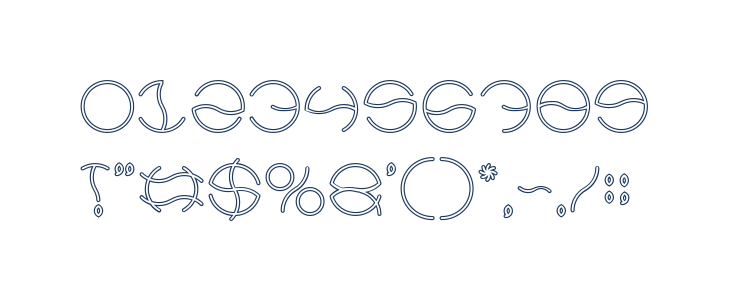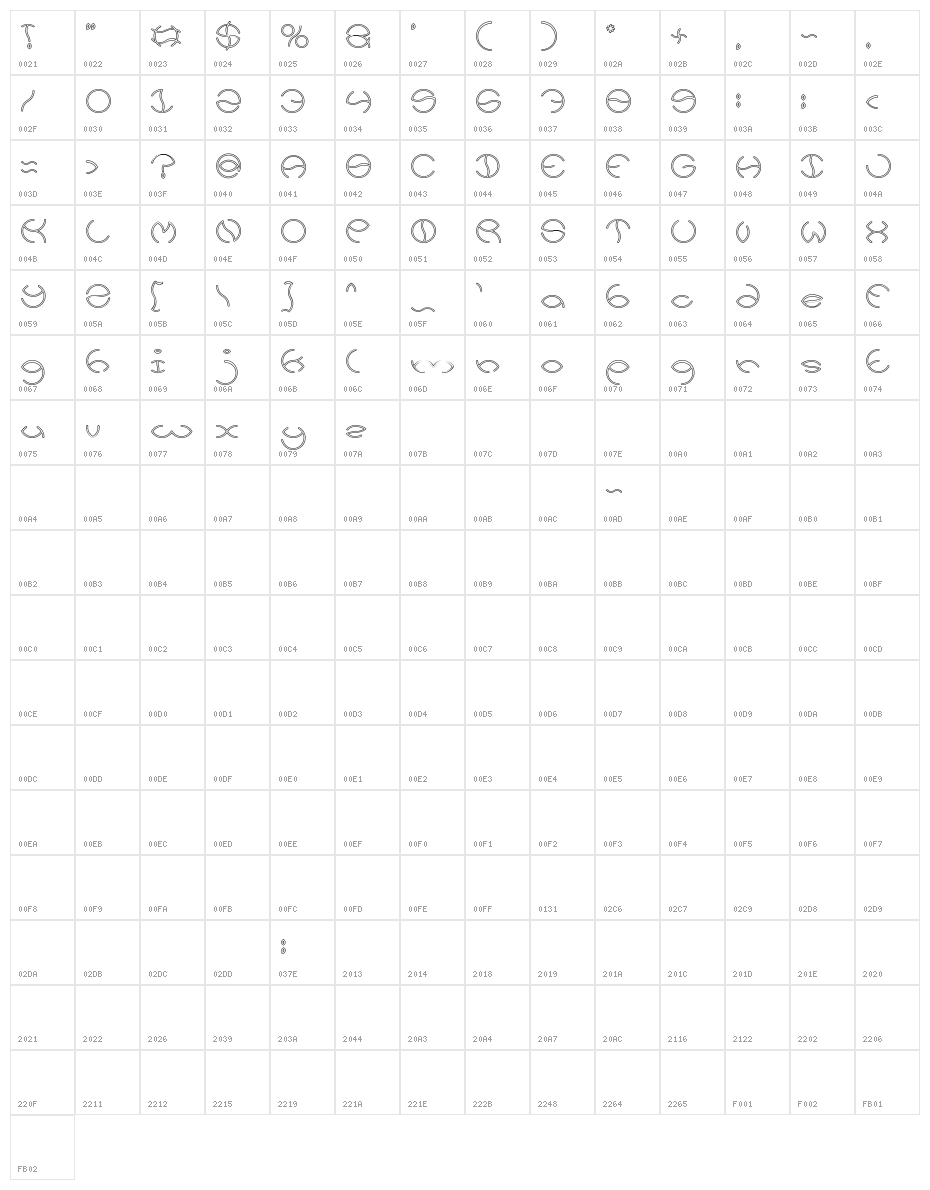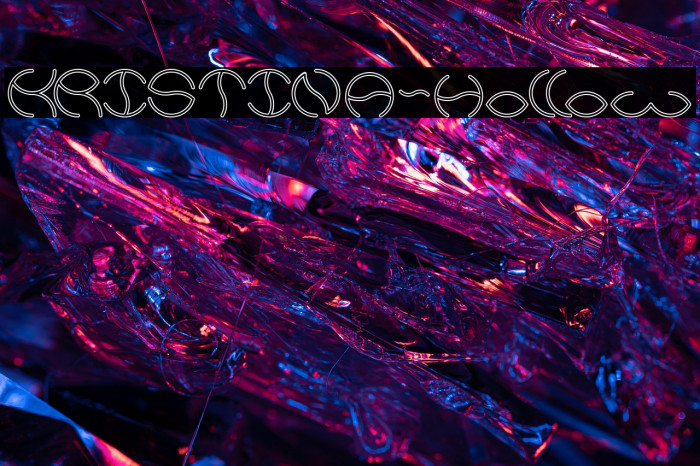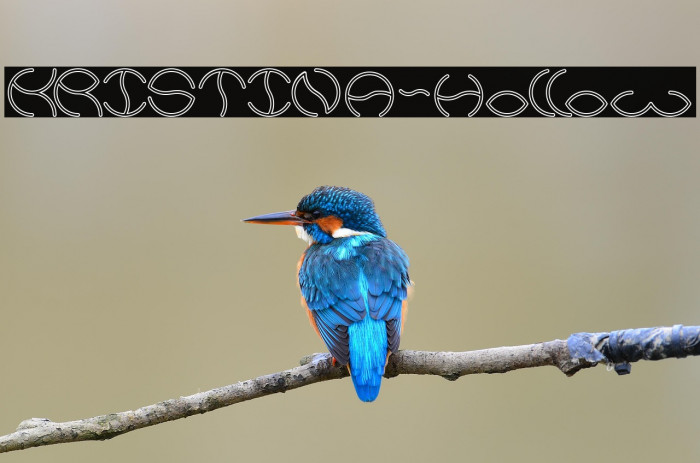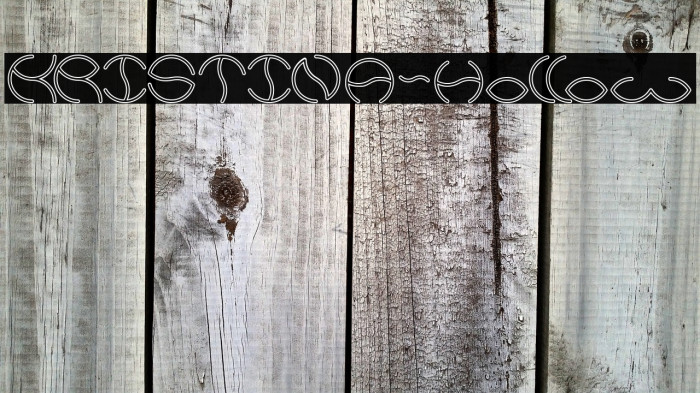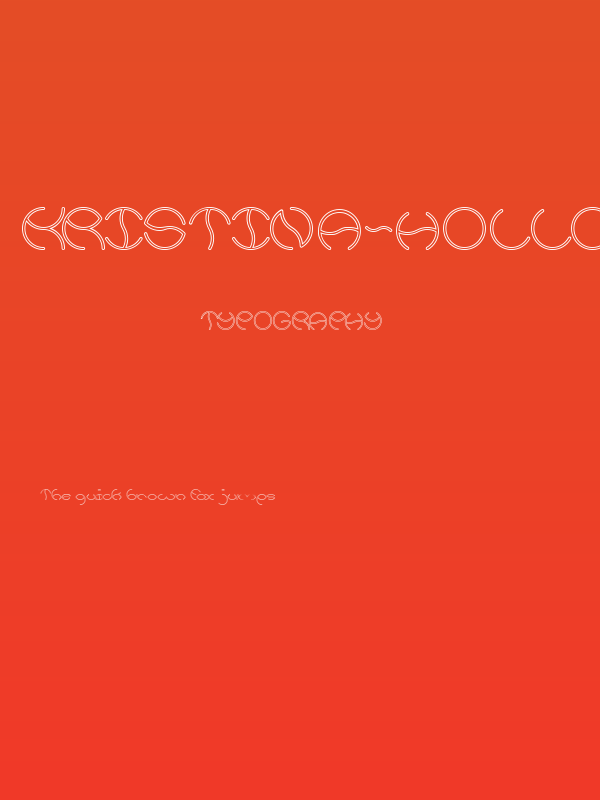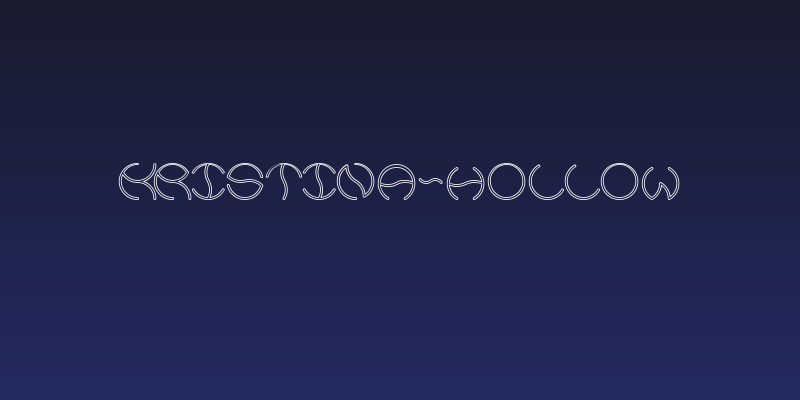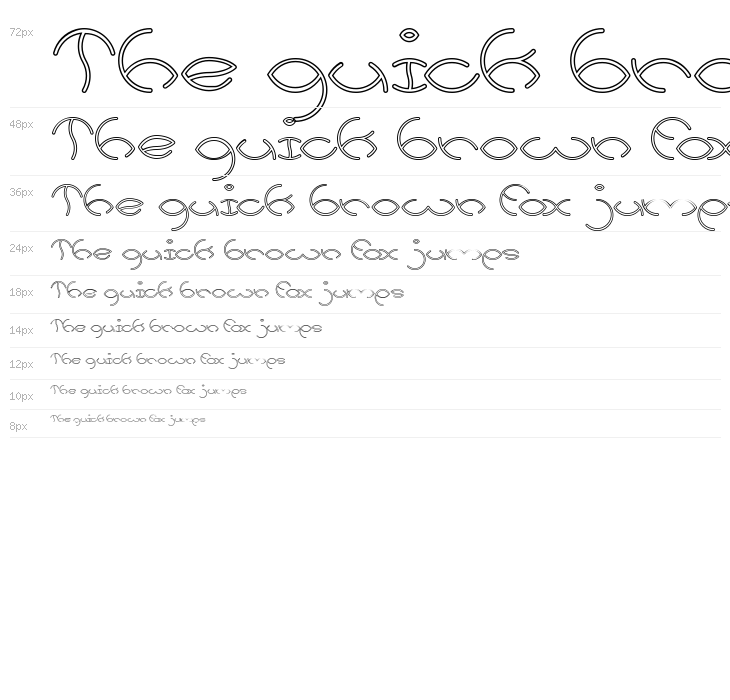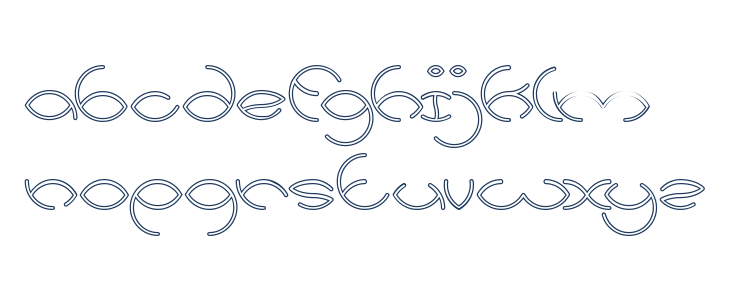
KRISTINA-Hollow Font
KRISTINA-Hollow Description
This font features a unique hollow design with a modern and artistic flair. Each character is outlined, creating a sense of openness and lightness. The letters have a consistent circular motif, giving them a cohesive and harmonious appearance. The uppercase and lowercase letters maintain a similar style, with slight variations in curvature and line thickness. Numbers and special characters are designed to match the overall aesthetic, ensuring uniformity across all elements. The font's hollow nature makes it ideal for projects that require a distinctive and eye-catching look.
| Use Case | Headlines, Logos, Creative Designs |
| Proposed Projects | Ideal for branding, posters, and creative design projects that require a unique and modern touch. |